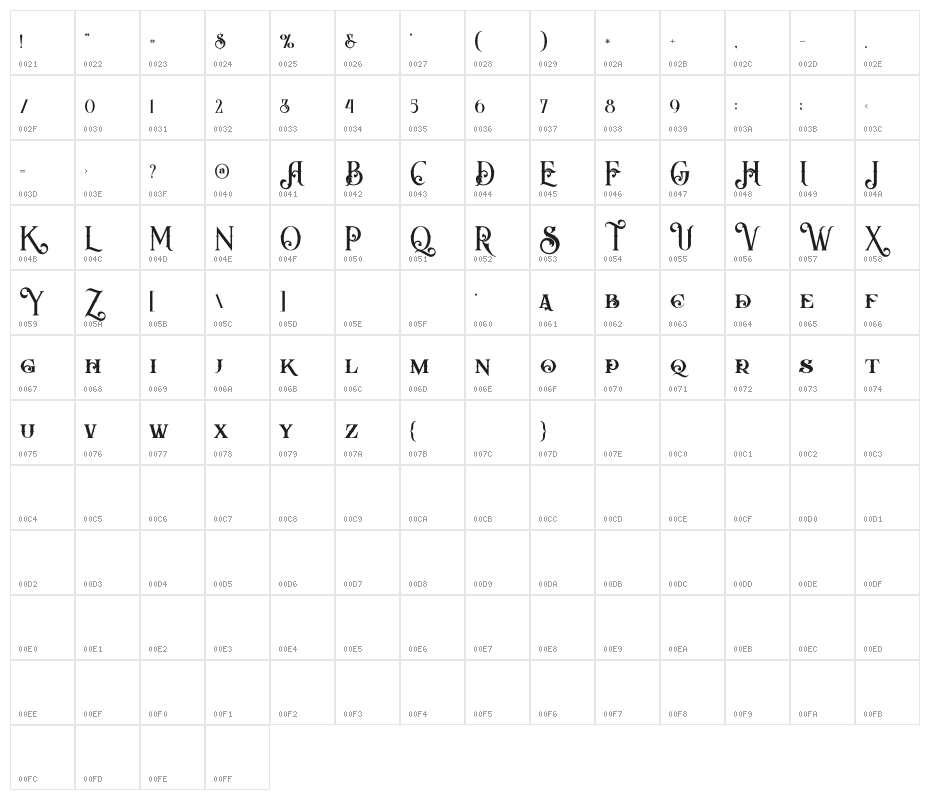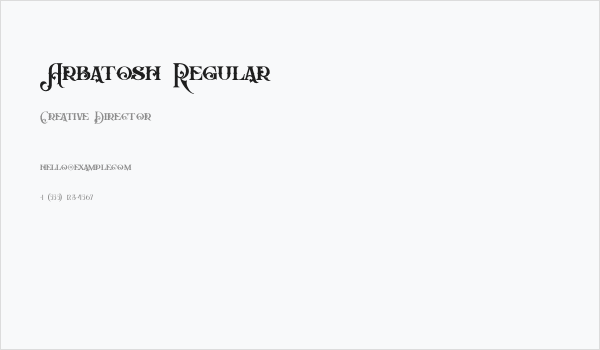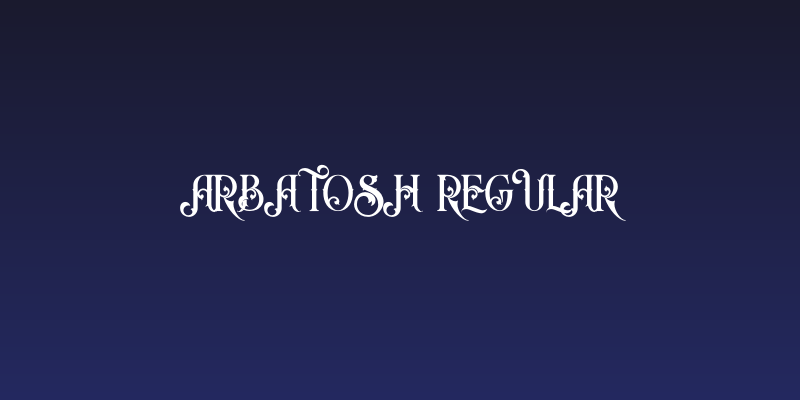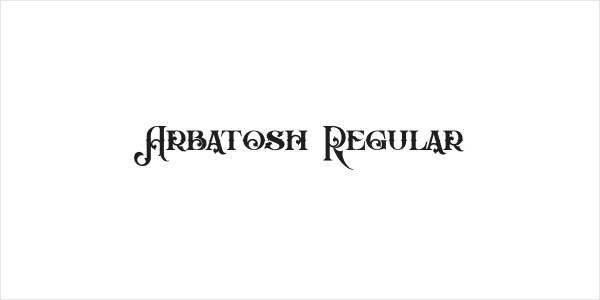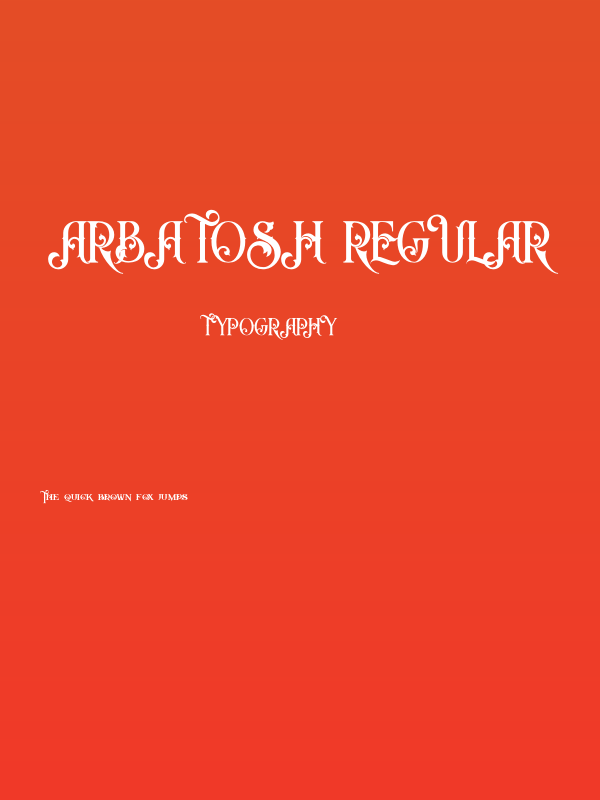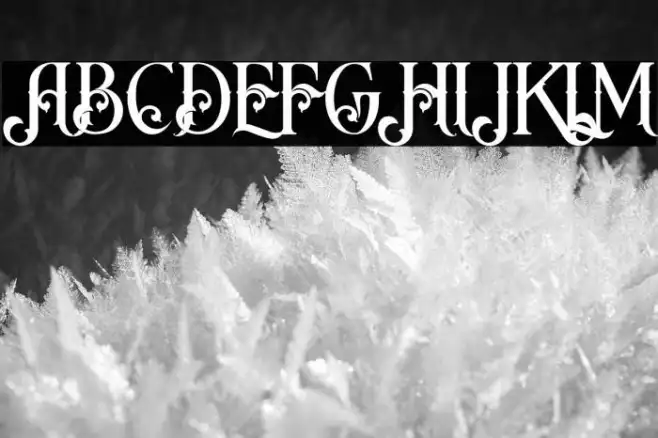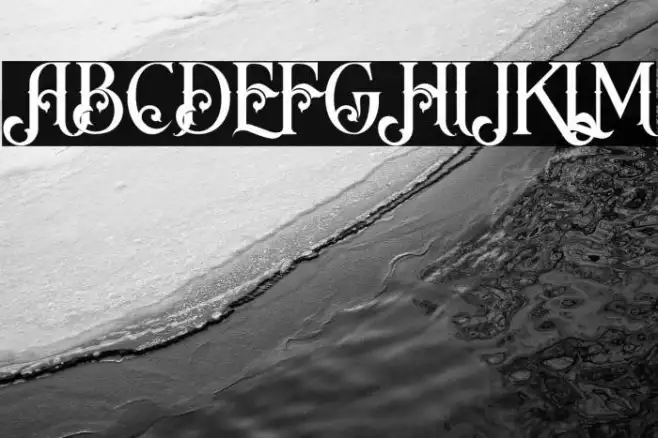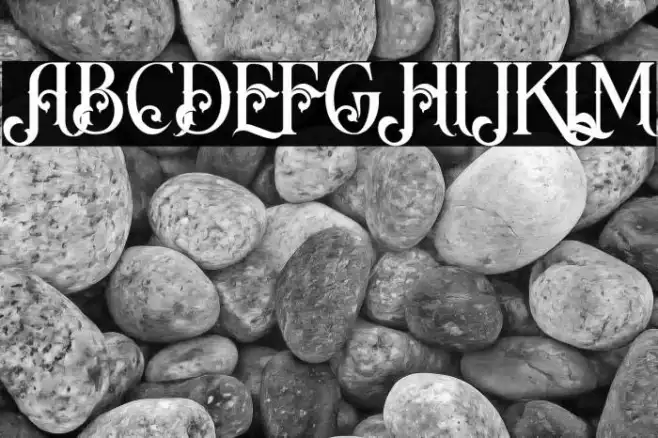
Arbatosh Regular Font
Arbatosh Regular Description
This font features an ornate and decorative style with intricate swirls and flourishes integrated into the letterforms. The uppercase letters are particularly elaborate, showcasing a blend of traditional serif elements with artistic embellishments. The lowercase letters maintain a similar decorative approach, though slightly more restrained. Numbers and special characters follow the same ornate design, making the font cohesive across all characters. The overall appearance is bold and eye-catching, suitable for projects that require a touch of elegance and sophistication.